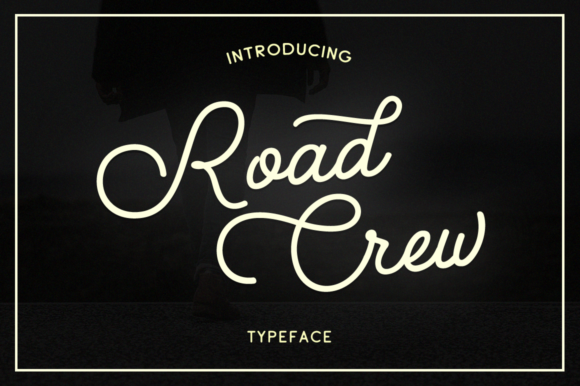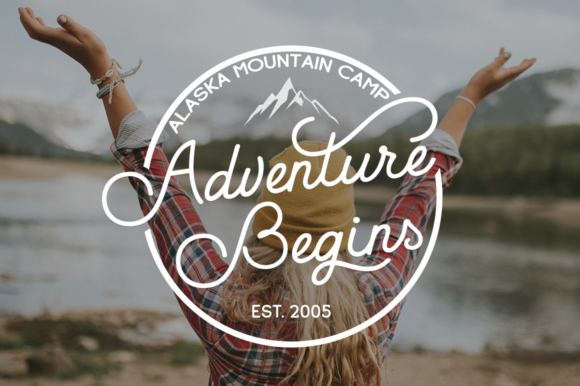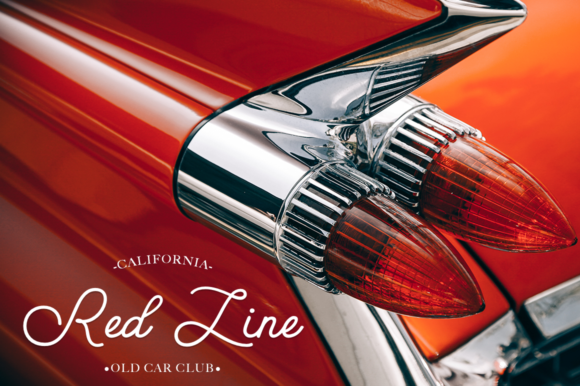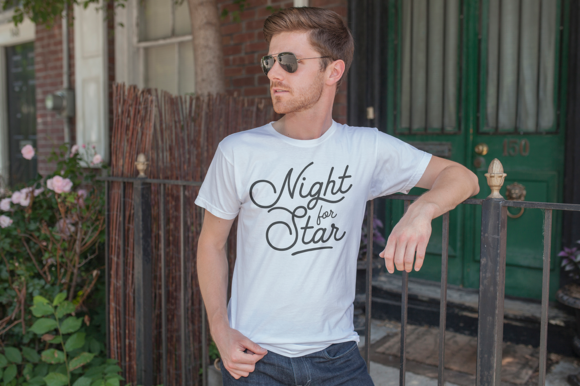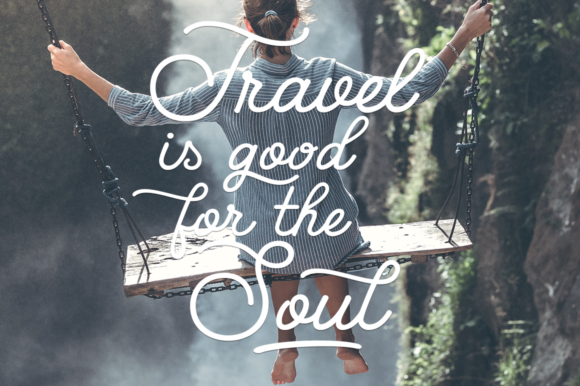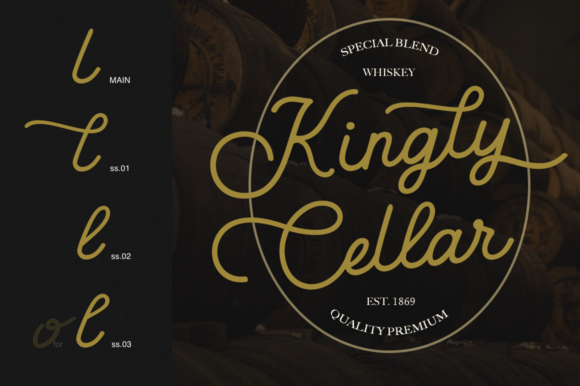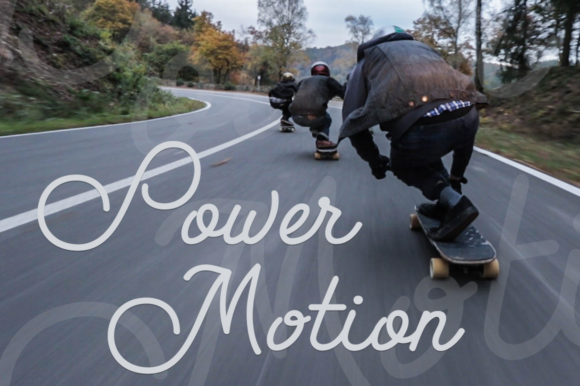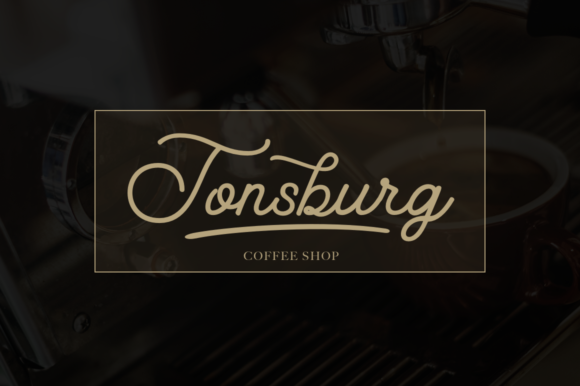
HomeScript FontsRoad Crew Font Script Fonts Road Crew Font FacebookXPinterestWhatsApp Road Crew Font Poster 2 Road Crew Font Poster 3 Road Crew Font Poster 4 Road Crew Font Poster 5 Road Crew Font Poster 6 Road Crew Font Poster 7 Road Crew Font Poster 8 About Road Crew Font The Road Crew is a fresh handmade typeface. It perfect for decorating unique projects! DOWNLOAD ON CREATIVE FABRICAThis font is sold and delivered by Creative Fabrica. Font Canyon may earn a commission if you buy through this link. People also explored Righteous Font Random Font Quitgan! Script Font. Asikira Font Hello Brother Font Jungland Bold Font Black History Font Shop Cat Lf Font Charlotte Shine Font 436 0 TagsRoad Crew Font Previous articleGladiolus FontNext articleLepota Font LEAVE A REPLY Cancel reply Comment: Please enter your comment! Name:* Please enter your name here Email:* You have entered an incorrect email address! Please enter your email address here Website: Save my name, email, and website in this browser for the next time I comment. Personal Use Free The Sweet Neo Personal Use Free Read more about this font Multicolore Personal Use Free Read more about this font Huntry Personal Use Free Read more about this font Planet Benson 2 Personal Use Free Read more about this font BLOG Fonts That Capture the Spirit of New York City New York City is more than just a place—it’s an experience, a rhythm, a visual language... To increase your work productivity, choose the most readable fonts. Best Fonts for YouTube Videos: Make Your Thumbnails Stand Out How to Install and Use Fonts on Windows, macOS, and Web Projects